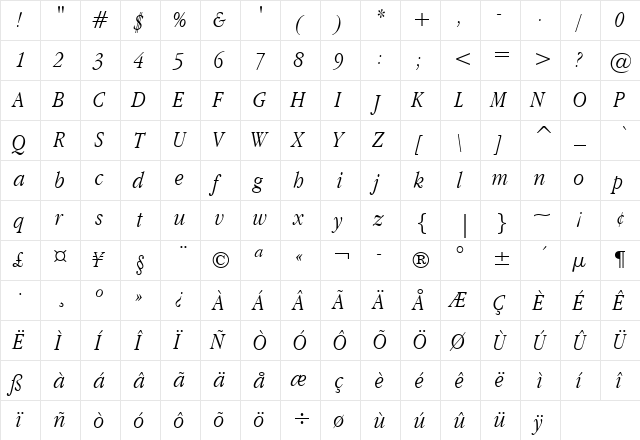
Apple Garamond BT Light Italic Font Preview
Design Context for Apple Garamond BT Typeface
Apple Garamond BT takes a measured approach to typography — its balanced proportions and neutral character make it a reliable workhorse for both digital and print work. The slanted form adds forward momentum and visual energy. The delicate stroke weight brings airiness and refinement to layouts.
Pro Tip: Try Apple Garamond BT for annotation and caption copy alongside an upright companion — the contrast in angle creates a dynamic but ordered typographic system.